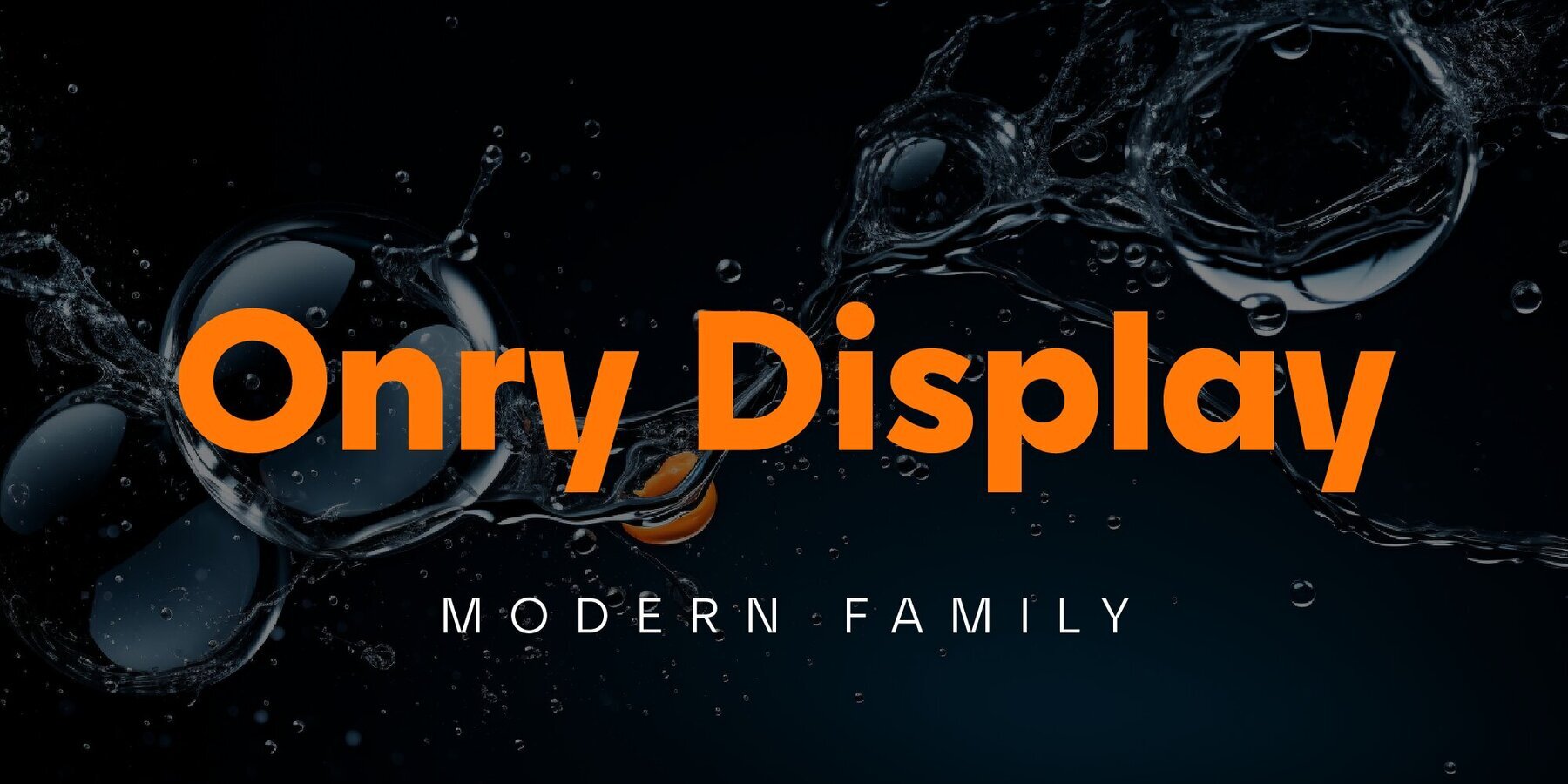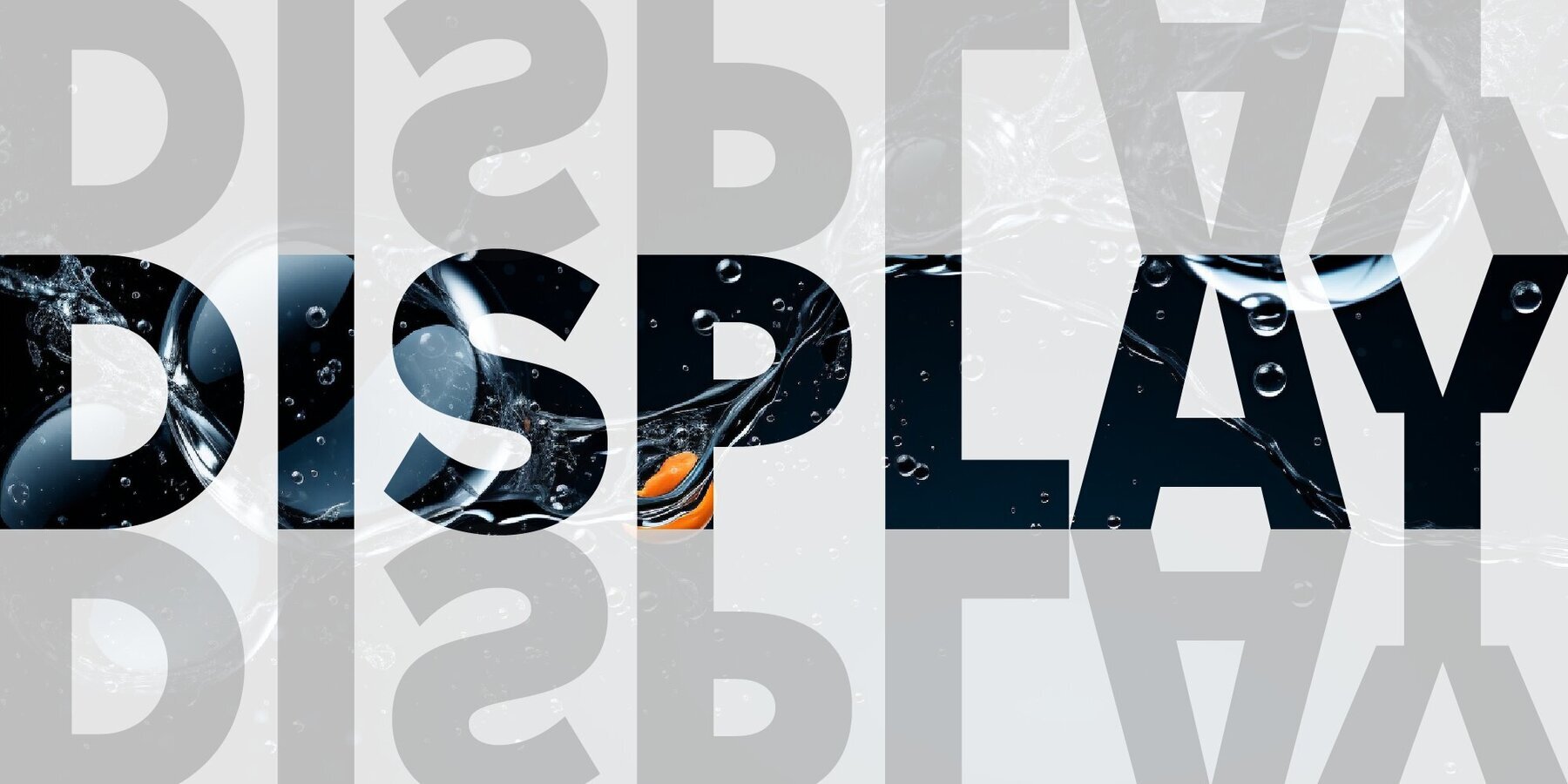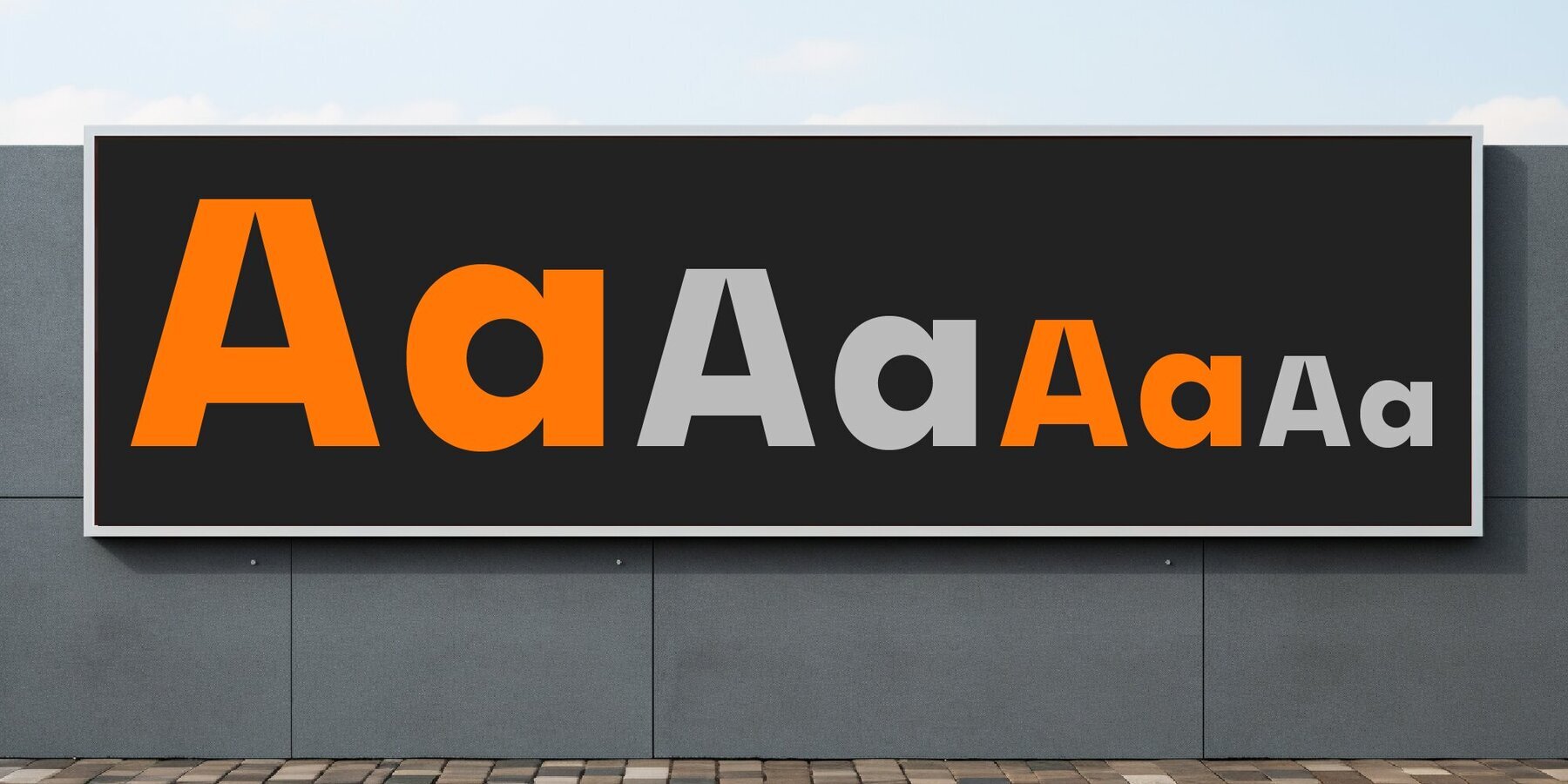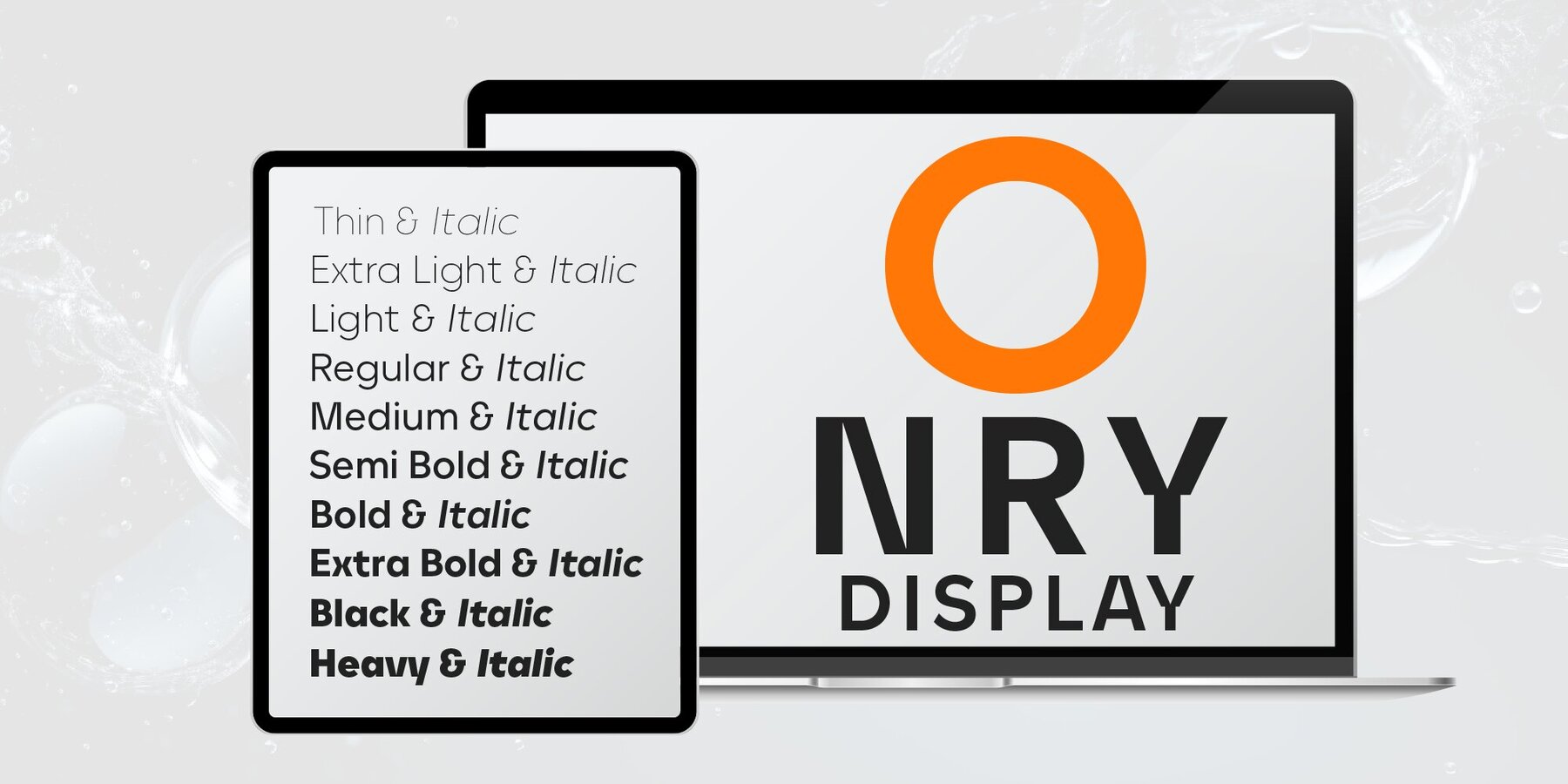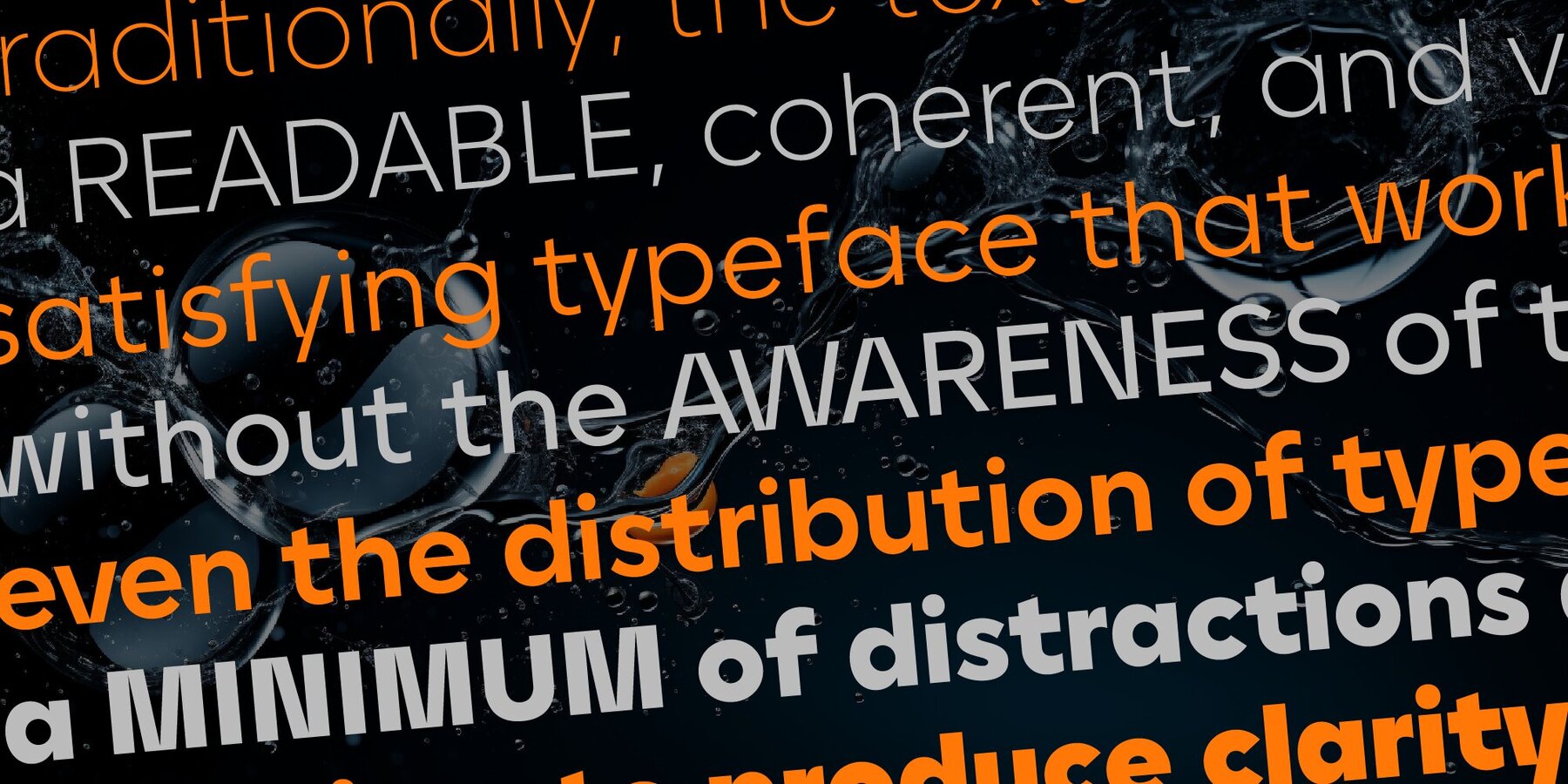
Onry Display Font
Onry Display is a modern family based on Willgray font family. It comes in 20 weights, 10 uprights, and matching italics. The ExtraBold weight is free of charge. This font family can be used as a headline or as a body copy typeface. The font features excellent legibility for print, as it does for reproduction on TV screens.
Savchuk Mykola began his career as a graphic designer. Over time, he had a desire to create a font that would reflect his view of typography. ‘They say that all ingenious things are simple, although unique. In my future projects, I want to reflect simplicity on the one hand and uniqueness on the other, providi...